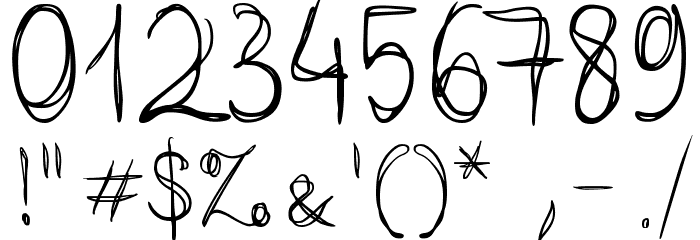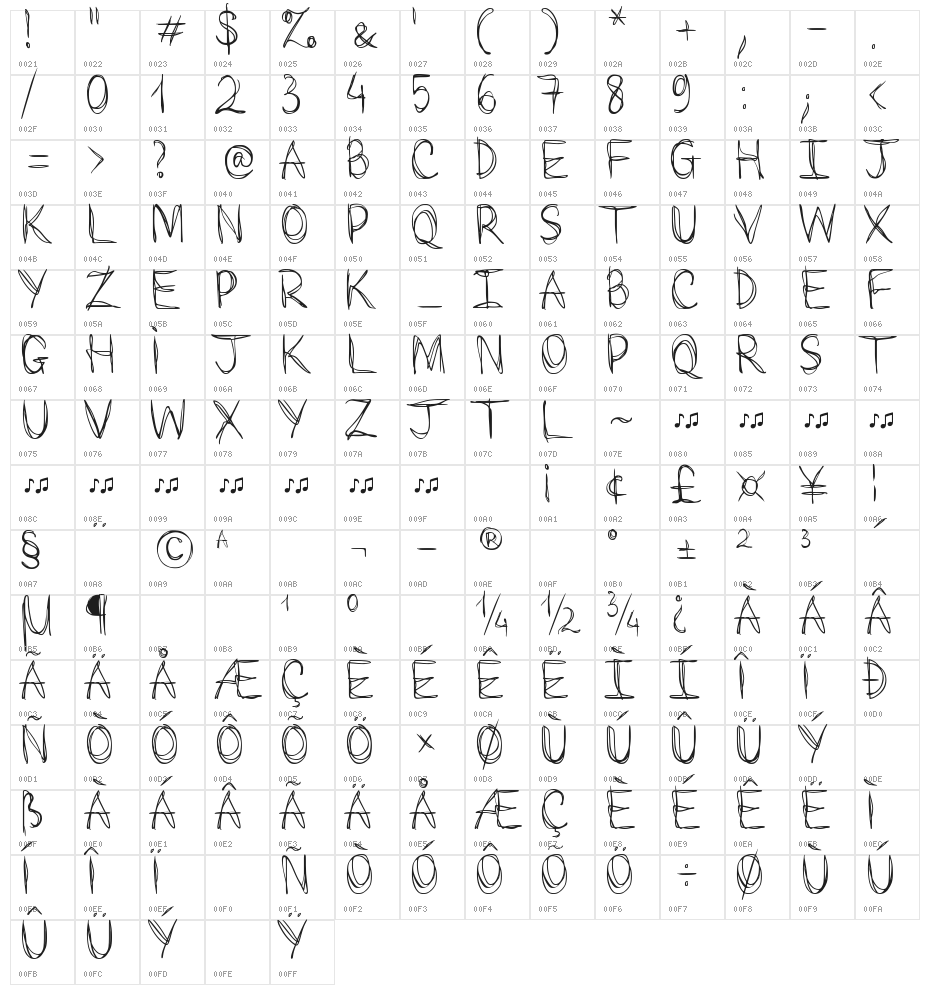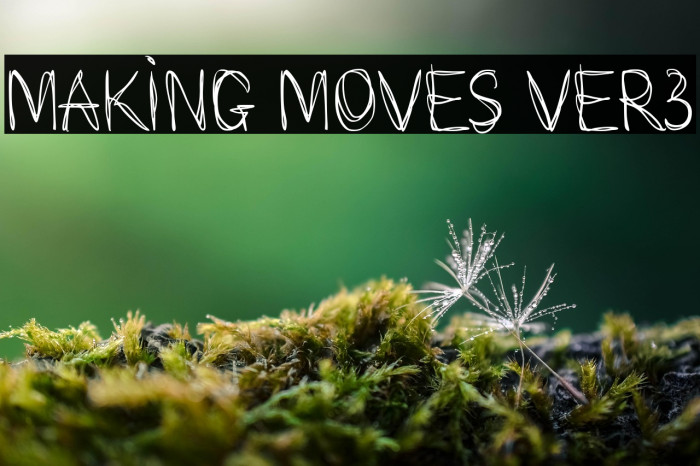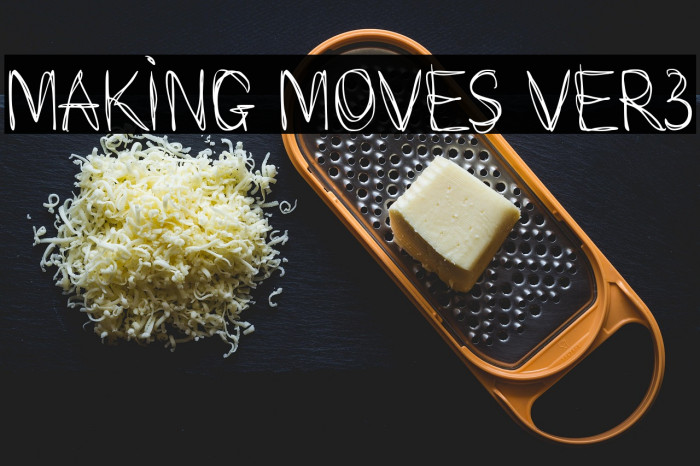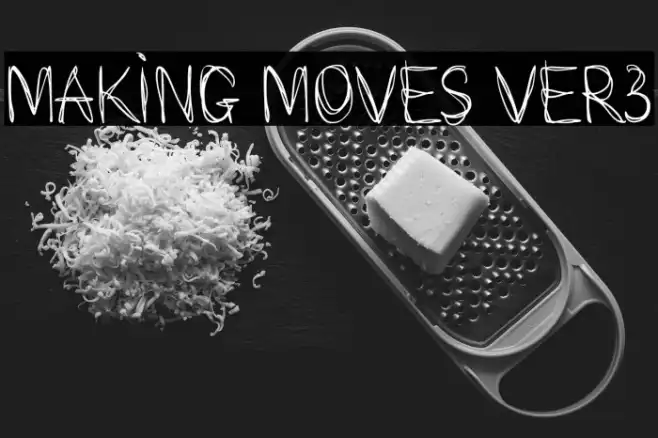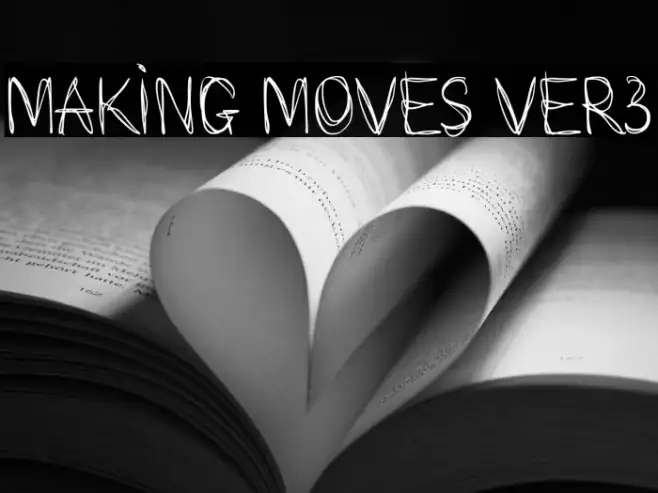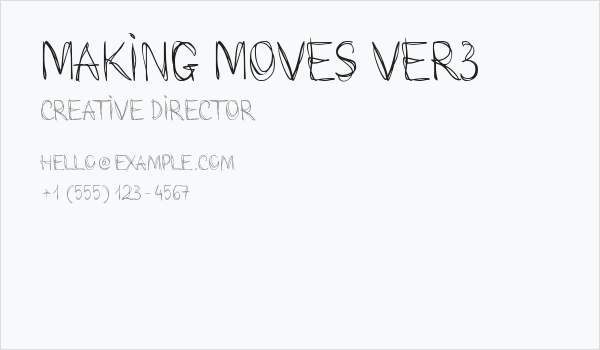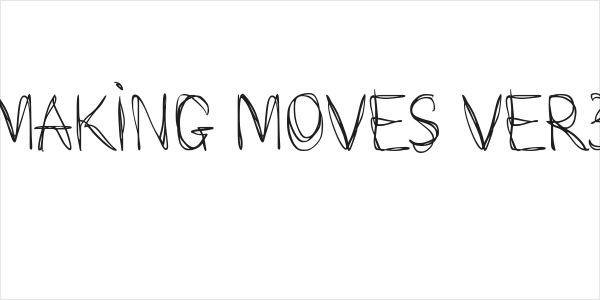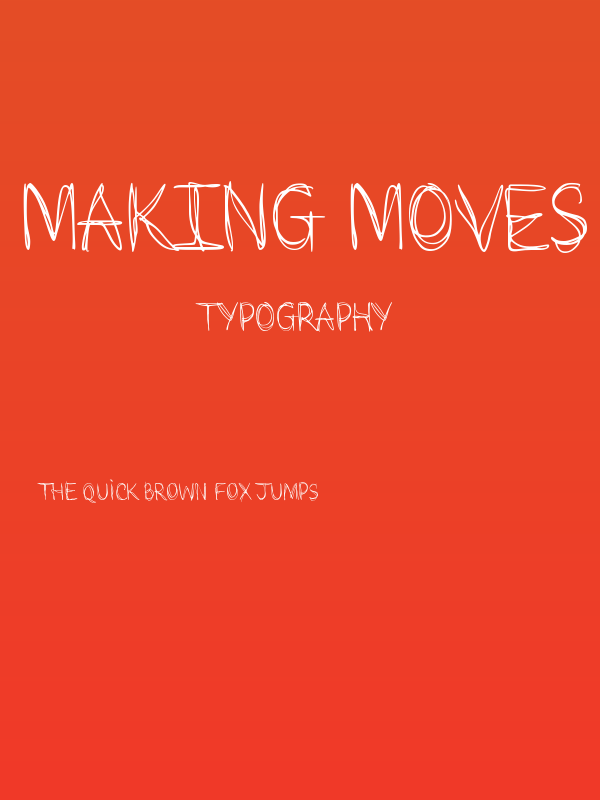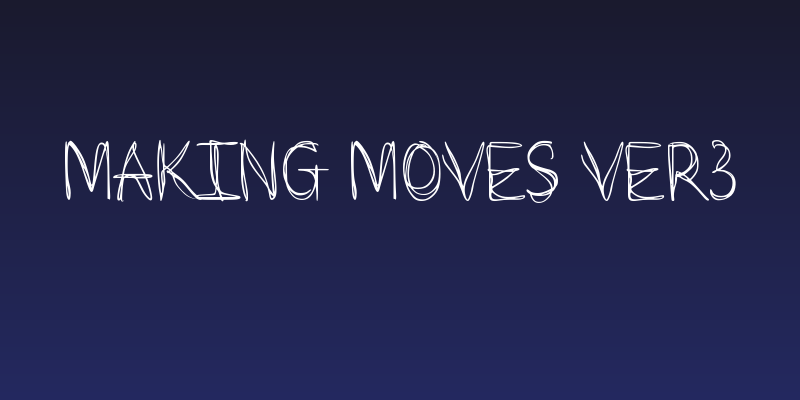
Making Moves ver3 Font
Making Moves ver3 Description
This font features a playful and energetic handwritten style, characterized by its irregular, sketch-like strokes and dynamic letterforms. The uppercase and lowercase letters maintain a consistent height, giving a uniform appearance despite the casual, freeform nature of the strokes. The numbers and special characters follow the same lively aesthetic, with each character appearing as if it were drawn with a quick, confident hand. The overall look is informal and artistic, making it ideal for projects that require a personal touch or a sense of movement and spontaneity.
| Proposed Projects | Ideal for greeting cards, children's book covers, creative posters, and artistic branding. |